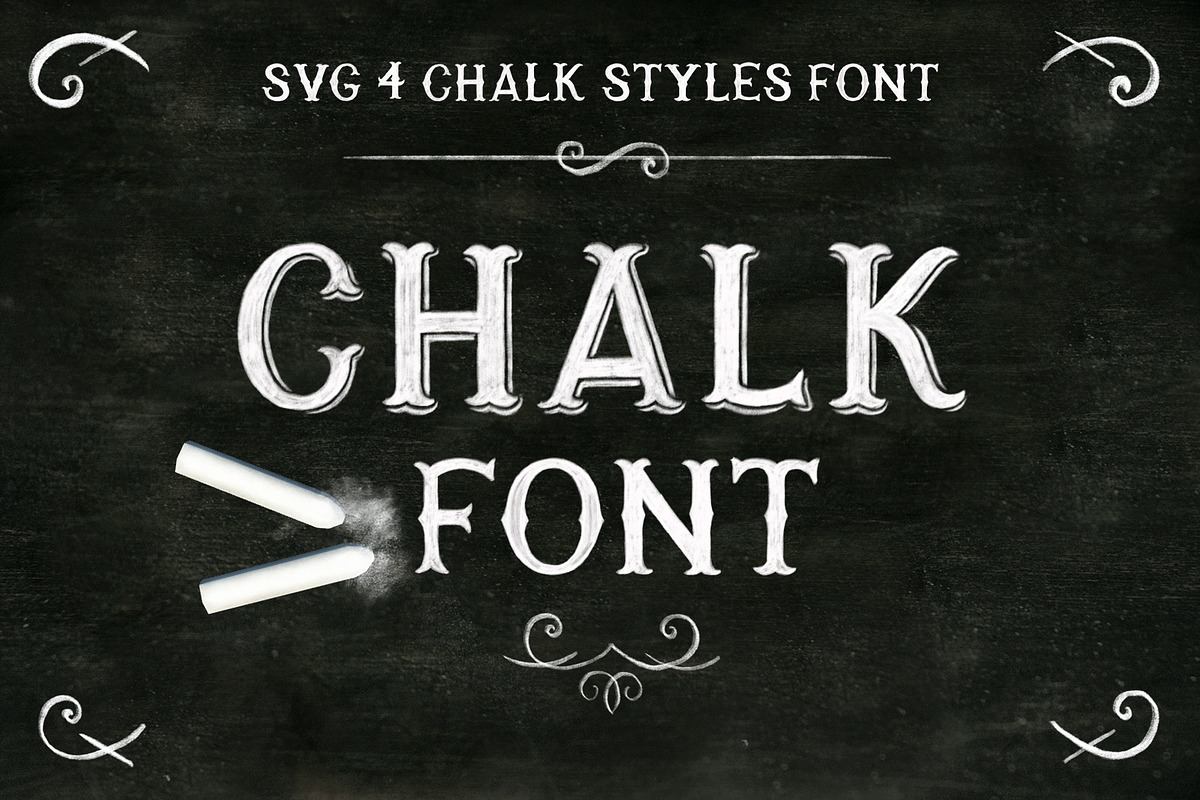
Chalk SVG Font Free Download is a highly detailed, textured typeface that authentically replicates the look of real chalk on a board. Ideal for café menus, school-themed projects, signage, posters, packaging, and playful branding, this font brings a handmade, artistic touch to any design. Its SVG format allows for realistic textures and depth that standard fonts can't match.
Designers love Chalk SVG Font Free Download for its creativity and uniqueness—it adds a casual, handcrafted feel that’s perfect for vintage or illustrative styles. Whether you're working on a children’s project or a quirky food brand, this font delivers charm and authenticity.